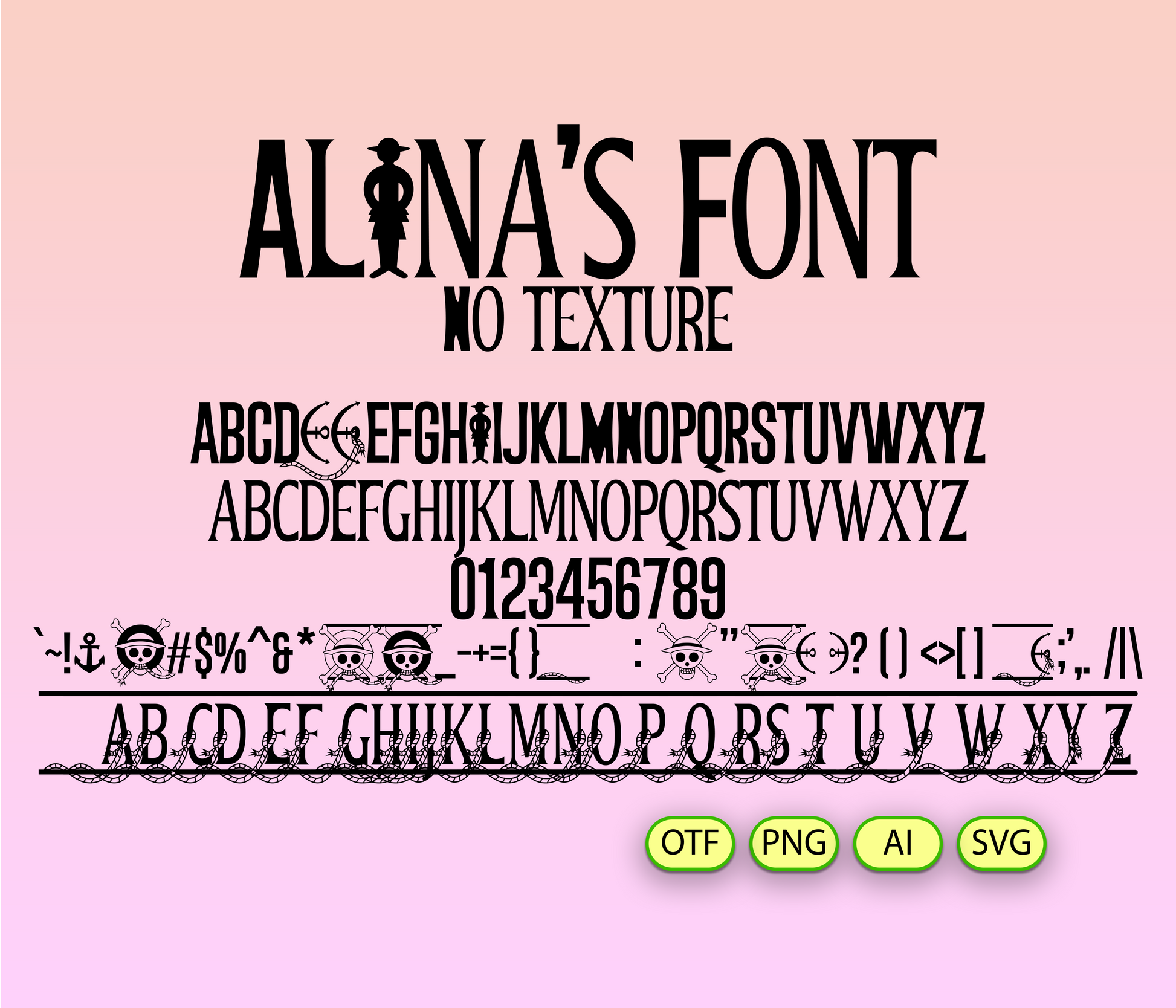
Legendary Voyage Font
Legendary Voyage Font Maritime Quest Adventure
Step into the thrilling world of seafaring legends with our Legendary Voyage font, capturing the essence of epic sea journeys and mythical treasure quests. Perfect for nautical-themed parties, adventure events, anime designers, and creative professionals, this font brings the bold, adventurous energy of maritime crews and legendary quests to your projects. Create captivating invitations, seafaring merchandise, or digital content with the daring, spirited essence of sailors navigating endless oceans in pursuit of legendary treasures.
Our Legendary Voyage font features dynamic, weathered letterforms with oceanic flourishes reflecting the epic aesthetic of maritime adventures and legendary sea quests. The characters blend nautical typography with mythical elements, creating perfect fusion of sailing culture and treasure seeking excitement.
Our Legendary Voyage font includes textured and non-textured variants, ensuring compatibility with all software, including Canva. This feature allows easy incorporation into designs for users of all skill levels.